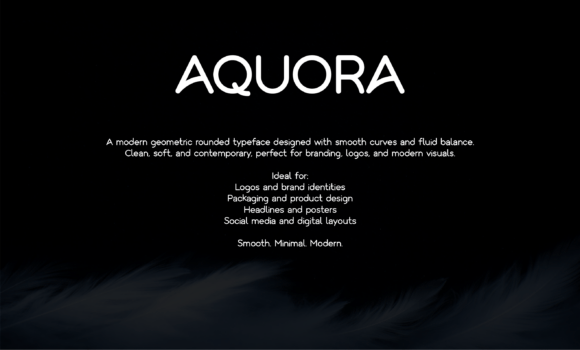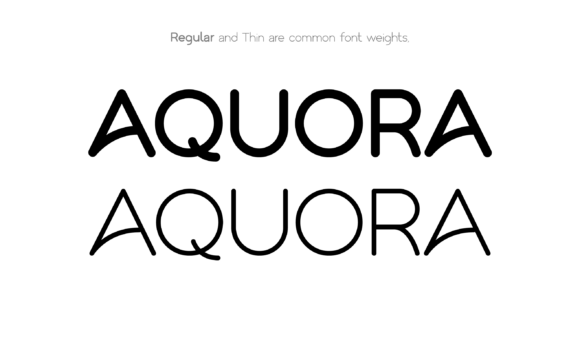
Design Inspiration Meets Timeless Elegance
Have you ever stared at a blank page, trying to find the perfect font to capture the essence of your design? The struggle is real, but what if we told you that your search is over? Introducing the Aquora Font, a game-changing typeface that seamlessly blends rounded geometrical style with smooth fluidity, creating a captivating ambiance that’s both friendly and professional.
| 👤 Author | Uzairr |
This stunning font is designed to elevate your designs, whether it’s a logo, product packaging, headline, or digital initiative. Its versatility shines through, maintaining its elegance and crystal-clear details across various scales and mediums, from print to screen. The Aquora Font is a valuable addition to any designer’s toolkit, providing a consistent and cohesive look that’s sure to impress.
Aquora Font Key Features
- Unique Characteristics: The font features a unique blend of modern and vintage elements, with distinctive letterforms and a wide range of stylistic sets for added versatility.
A Designer’s Review of Aquora Font
Aquora Font has been gaining traction in the design community, and I’m excited to share my honest thoughts on this popular font. ✨ One of the standout features of Aquora is its versatility. It’s suitable for a wide range of applications, from titles and headings to body text and even digital displays. The font’s modern, elegant design makes it an excellent choice for any project that demands a touch of sophistication.
✨ Another notable aspect of Aquora is its legibility. The font’s clear, clean lines ensure that text is easy to read, even at smaller font sizes. This makes it an ideal choice for websites, apps, and other digital platforms where text may be viewed on smaller screens.
Limits and Challenges
⚠️ While Aquora is a solid choice for many projects, it may not be the best fit for more playful or informal designs. The font’s sleek, modern aesthetic can come across as too formal or corporate for some applications. Additionally, Aquora may not offer the same level of expressiveness as some other fonts, which can make it feel a bit one-dimensional in certain contexts.
Aquora Font is a reliable, well-designed font that’s sure to please a wide range of designers and clients. While it may not be the most exciting or expressive choice, its versatility and legibility make it a solid addition to any font library. If you’re looking for a clean, modern font that’s easy to read, Aquora is definitely worth considering.
- Highly versatile and suitable for a wide range of applications
- Modern, elegant design
- Excellent legibility, even at smaller font sizes
- Might not be the best fit for more playful or informal designs
- Lacks expressiveness compared to some other fonts
Getting the Most Out of Aquora Font
Aquora Font is ideal for creating modern and elegant designs. To get the most out of it, try:
Using it in combination with other sans-serif fonts for a clean and minimalist look.
Applying it in bold or italic styles to add emphasis to your text.
Experimenting with different font sizes and colors to create visual interest.
Aquora Font is suitable for:
Branding and logos.
Business cards and stationery.
Web design and digital marketing materials.
Presentations and reports.